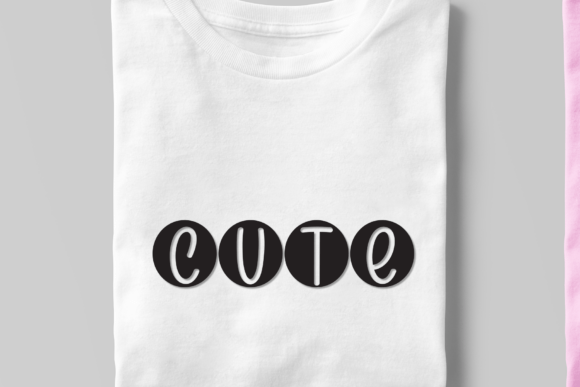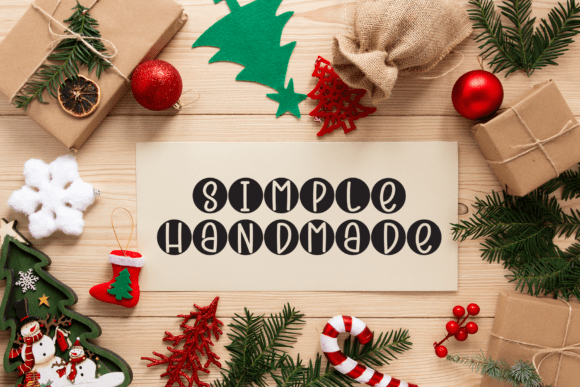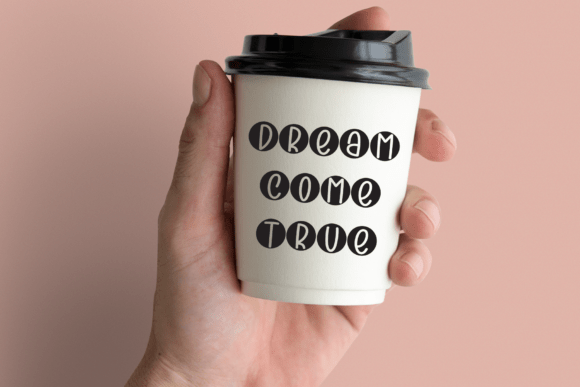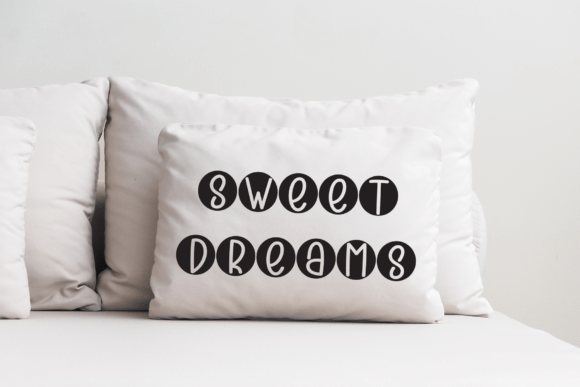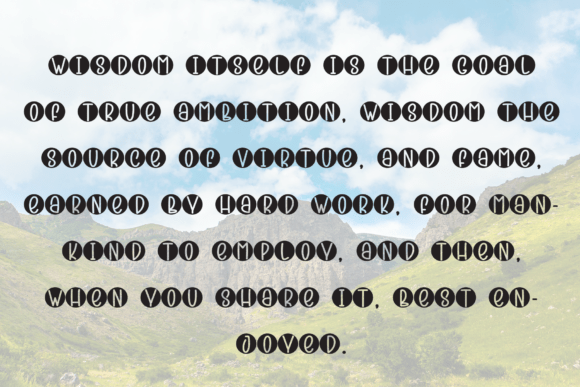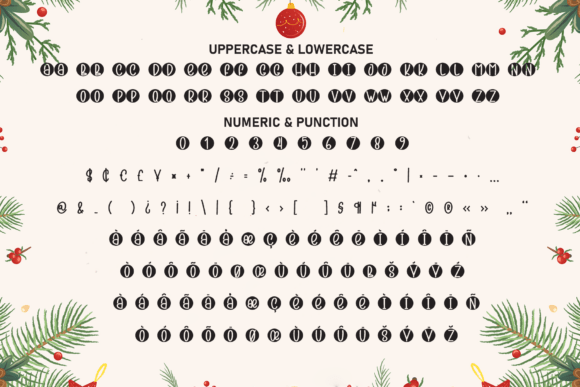
Christmas Monogram Font: A Charming Handwritten Display Font for Your Holiday Designs
Are you looking for a font that embodies the warmth and joy of the holiday season? Look no further than the Christmas Monogram Font! This charming and amicable handwritten display font is perfect for adding a touch of whimsy and delight to your Christmas designs. In this article, we’ll introduce you to the Christmas Monogram Font and explore its features, uses, and benefits.
A Warm and Delightful Vibe
The Christmas Monogram Font is designed to radiate a warm and delightful vibe, making it perfect for the holiday season. Its cuteness and light-heartedness are sure to bring a smile to anyone’s face. Whether you’re designing wedding invites, greeting cards, or holiday decorations, this font is sure to add a touch of joy and festivity to your designs.
Perfect for Wedding Invites and Greeting Cards
One of the unique features of the Christmas Monogram Font is its versatility. While it’s perfect for holiday designs, it’s also great for wedding invites and greeting cards. The font’s whimsical appeal adds a sprinkle of joy to any design, making it perfect for special occasions. Imagine sending out wedding invites with a custom monogram in this charming font – it’s sure to set the tone for a joyful and celebratory wedding!
Whimsical Appeal for Fun and Festive Designs
The Christmas Monogram Font has a whimsical appeal that’s hard to resist. Its playful and carefree design makes it perfect for adding a touch of fun to any design. Whether you’re designing holiday decorations, party invitations, or gift tags, this font is sure to bring a smile to anyone’s face. Its light-heartedness and cuteness make it perfect for designs that require a playful and festive touch.
The Christmas Monogram Font has several features and benefits that make it a great addition to your font collection. Some of its key features include:
- Handwritten display font with a warm and delightful vibe
- Perfect for wedding invites, greeting cards, and holiday designs
- Whimsical appeal adds a sprinkle of joy to any design
- Light-hearted and cute design perfect for playful and festive designs
Tips for Using the Christmas Monogram Font
Here are some tips for using the Christmas Monogram Font in your designs:
- Use it as a display font to add a touch of whimsy to your designs
- Pair it with other fonts to create a unique and festive look
- Use it to create custom monograms for wedding invites and greeting cards
The Christmas Monogram Font is a charming and amicable handwritten display font that’s perfect for adding a touch of joy and whimsy to your holiday designs. Its warm and delightful vibe makes it perfect for wedding invites, greeting cards, and holiday decorations. With its light-hearted and cute design, it’s sure to bring a smile to anyone’s face. So why not give it a try and see how it can add a sprinkle of joy to your designs?
Whether you’re a designer or crafter, the Christmas Monogram Font is a great addition to your font collection. Its versatility and whimsical appeal make it perfect for a wide range of designs, from wedding invites to holiday decorations. So go ahead, get creative, and make this font a part of your holiday design traditions!